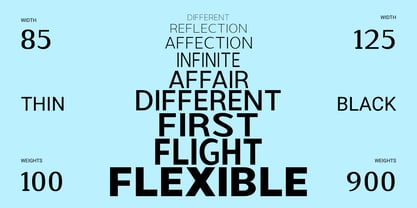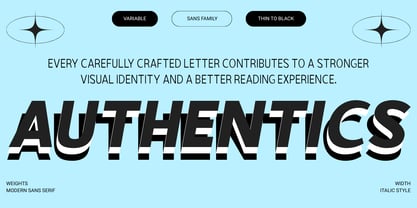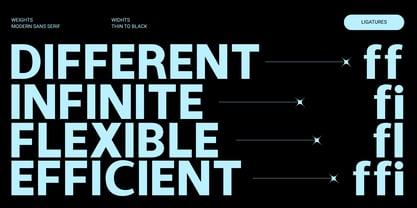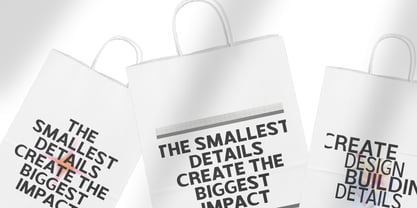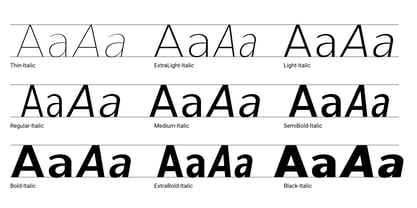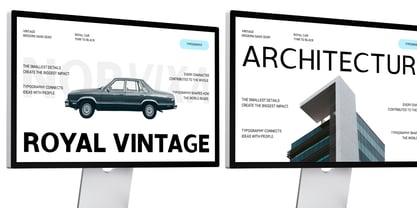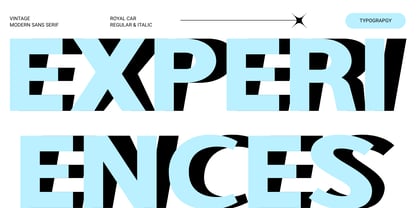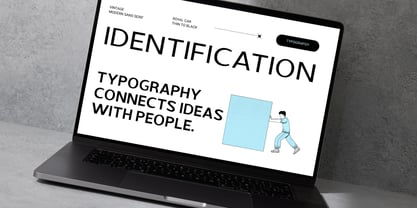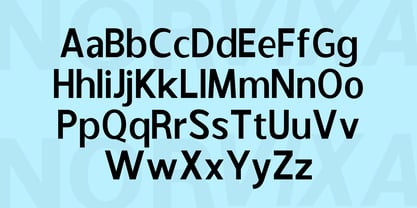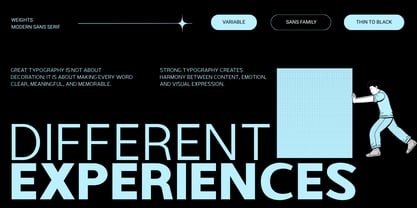
Norvixa
by Ajibatype
The Norvixa Font Family was designed by Jamhur and published by Ajibatype. Norvixa contains 181 styles and family package options. More about this family
A refined sans serif typeface with a soft, contemporary character and a sophisticated typographic range. Featuring 9 weights and 5 widths, it offers a versatile system designed to create everything from delicate, understated compositions to bold and expressive statements. Each style is carefully balanced to maintain consistency, rhythm, and visual harmony across various sizes and applications. With its subtle softness and clean construction, the typeface brings a distinctive sense of warmth and elegance while preserving excellent clarity and readability. Extensive international language support makes it suitable for a wide range of audiences and creative contexts, allowing the family to perform seamlessly across global projects. Thoughtfully designed for flexibility, it adapts effortlessly to branding, editorial, digital interfaces, advertising, packaging, and display typography. Whether used for refined headlines, immersive layouts, or everyday text, this typeface provides a polished and contemporary foundation for sophisticated visual communication.
Designers: Jamhur
Foundry: Ajibatype